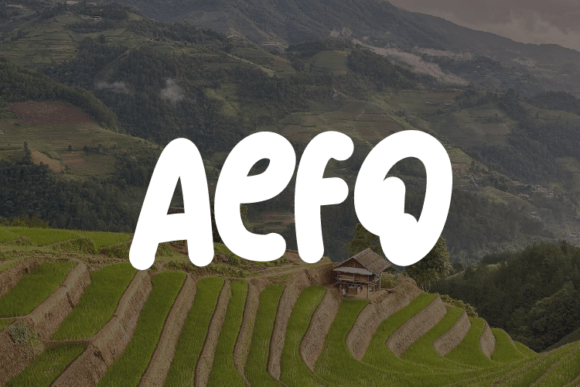
A New Era in Typography: Unveiling the Aefo Font
Enter the Aefo Font, a modern and elegant typeface designed to meet the demands of the digital age. With its superior readability and flexibility, Aefo Font is the perfect companion for designers looking to create stunning visuals across various media platforms. Its compatibility with a wide range of software, including Adobe Creative Suite and Microsoft Office, makes it an invaluable asset for any design project.
Whether you’re a seasoned pro or just starting out, the Aefo Font is sure to become your go-to choice for all your design needs. Its versatility and cross-platform compatibility make it an essential tool for any designer looking to take their work to the next level.
Aefo Font Key Features
- Font Family: Aefo Font is a sans-serif font family.
- Unique Characteristics: Aefo Font features a clean, modern design with rounded edges and a subtle italic style, making it ideal for digital interfaces and publications.
Aefo Font Review
Aefo Font is a modern sans-serif typeface that caught my attention. Here’s my honest review.
- The font has a clean and minimalistic design, making it perfect for digital applications.
- It’s highly legible, even at small font sizes.
- The font family includes multiple weights and styles, offering a lot of flexibility for designers.
- The font’s x-height is well-proportioned, which makes it easy to read.
- The font’s default spacing is a bit tight, which may cause issues with text flow.
- The font’s design may not be ideal for traditional printing or publishing applications.
- The font family could benefit from additional language support.
Aefo Font is a solid choice for digital design projects, especially those requiring a modern and minimalist aesthetic. While it may have some limitations, its strengths outweigh its weaknesses. Overall, I’m impressed with the font’s versatility and potential.
Aefo Font is ideal for creating elegant and modern designs. Use it for:
- Editorial and publishing projects
Alternatives to Aefo Font for Designers
Aefo Font is a sans-serif font known for its clean and modern design. However, designers may look for alternative fonts to suit their specific project requirements. Here are a few options: